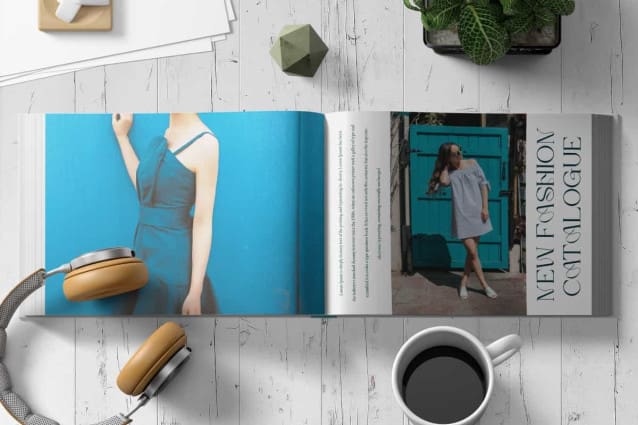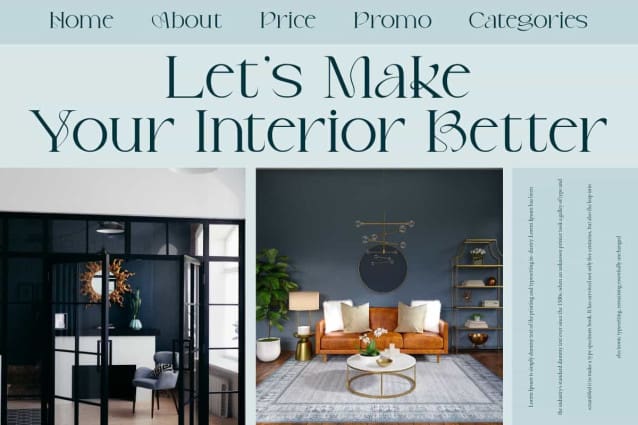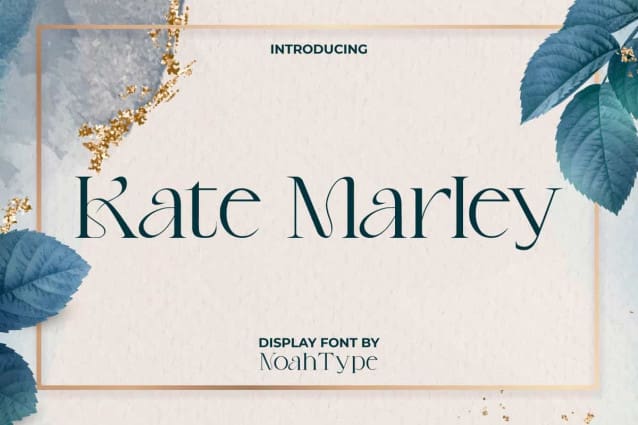
Kate Marley Font
Kate Marley Font is a sleek enchanted serif display font. This font has an elegant character so it gives a clean impression and easy to read. It will be perfect for any designs, such as brand image, cover, custom design, invitation, label, marketing material, menu, poster, product packaging, quotes, signage, stationery, web, and many more!
Kate Marley Font includes full set of Uppercase and Lowercase Basic Characters, Numerals and Punctuation. This font will be perfect choice for many industries, such as advertising, beauty product, cafes, fashion, jewelry and accessories, photography, printing, publishing, restaurant, etc.